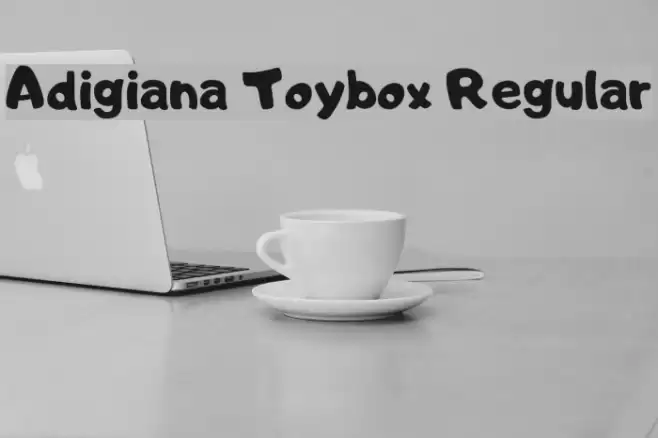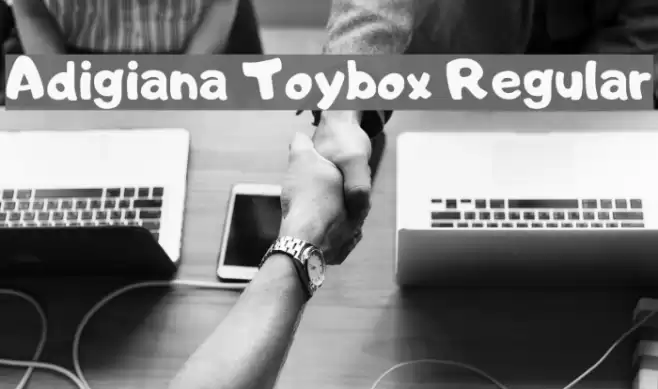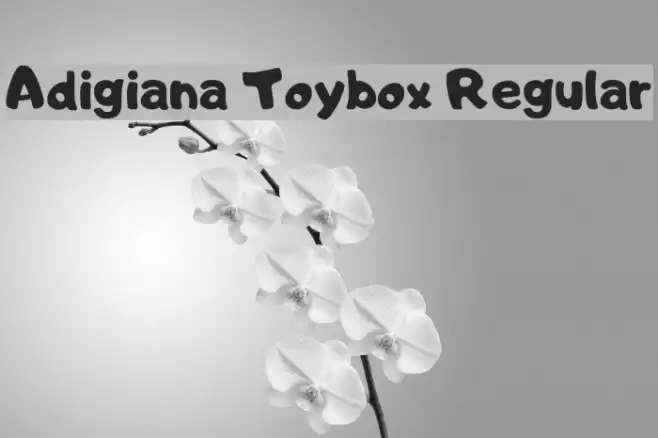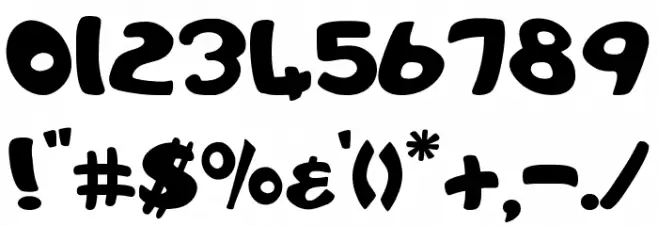
Adigiana Toybox Regular Font
Adigiana Toybox Regular Description
This playful and whimsical font features bold, rounded characters with a bubbly appearance. The letters have a consistent thickness, giving them a cartoon-like quality that is both fun and approachable. The uppercase and lowercase letters maintain a uniform style, with slightly exaggerated curves and a friendly demeanor. Numbers and special characters follow the same playful design, making this font ideal for projects that require a lighthearted and informal touch. Its unique style makes it stand out, perfect for capturing attention in creative designs.
A playful, bold font with rounded, bubbly characters from Uncategorized fonts.
- Proposed Projects: Ideal for children's books, playful branding, party invitations, and creative posters.
- Overall Style: Playful